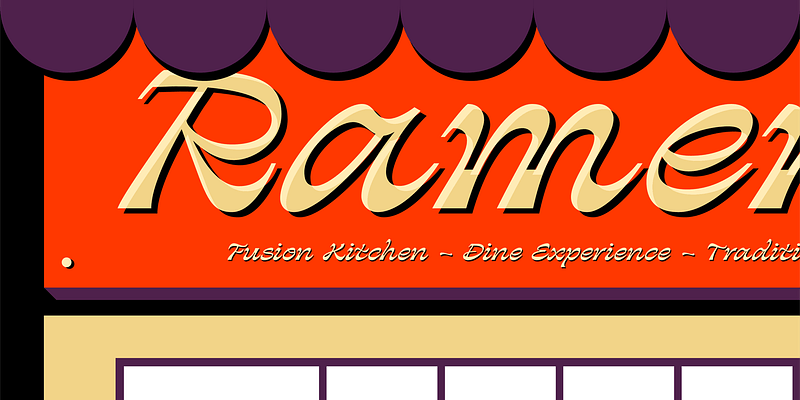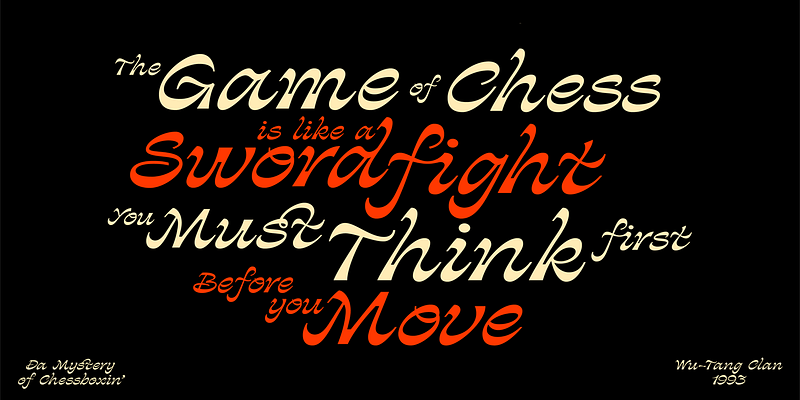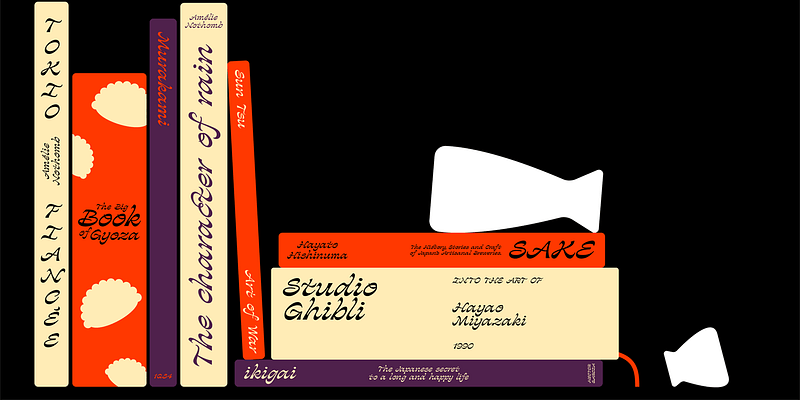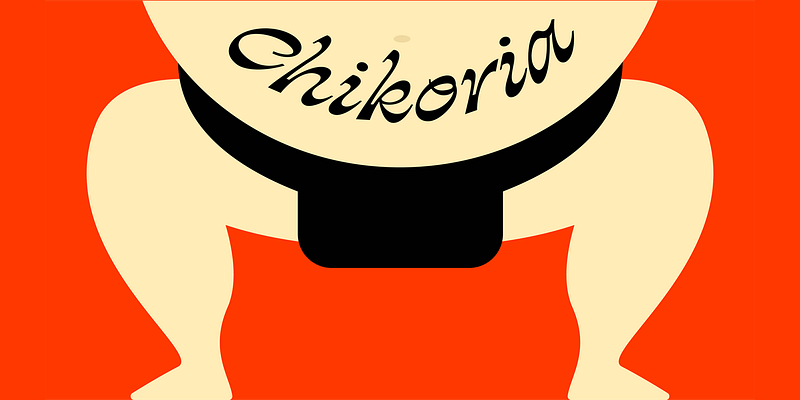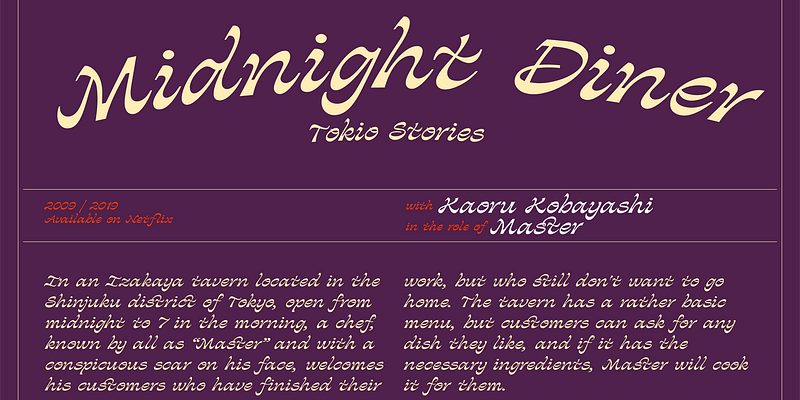
Chikoria has several extraordinary features, the most eye-catching of which is the inverted thick/thin contrast. Unlike the Renaissance Chancery italics, here the imaginary flat nib has various angles with the letters showing thick parts top and bottom instead of left and right. Letters a, g and f (with a descender) cling to the italic tradition, but Chikoria’s slant is much greater than Chancery italics.